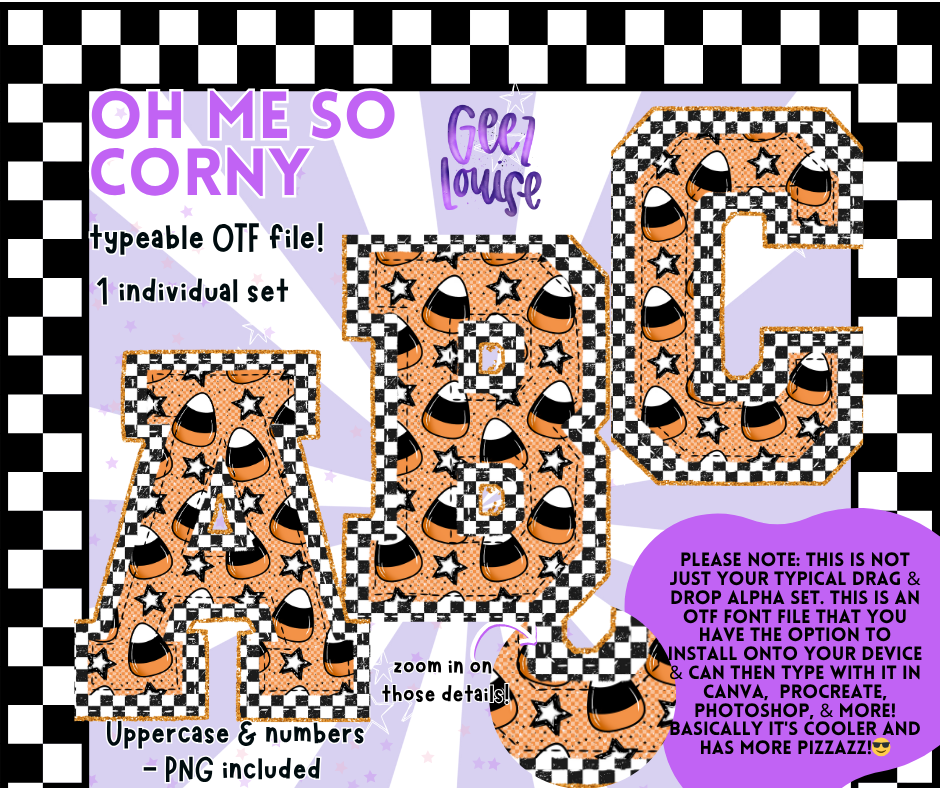
Oh Me So Corny – Candy Corn OTF Alpha Font + PNG Set
Sweet, sassy, and totally corny 🍬🖤
Oh Me So Corny is your new favorite typeable OTF alpha packed with Halloween charm and checkerboard attitude.
Perfect for playful designs, spooky projects, or just living your corny truth. 💁♀️